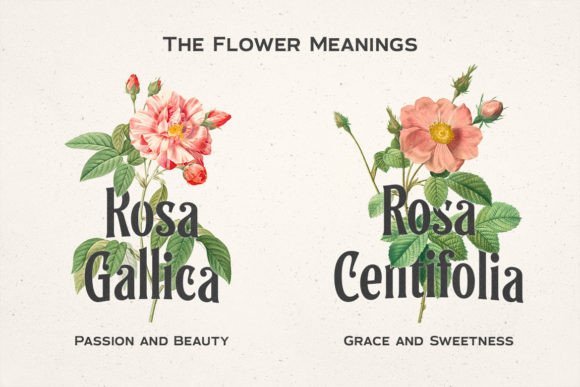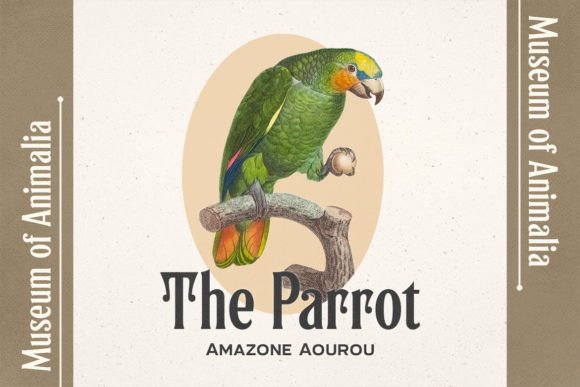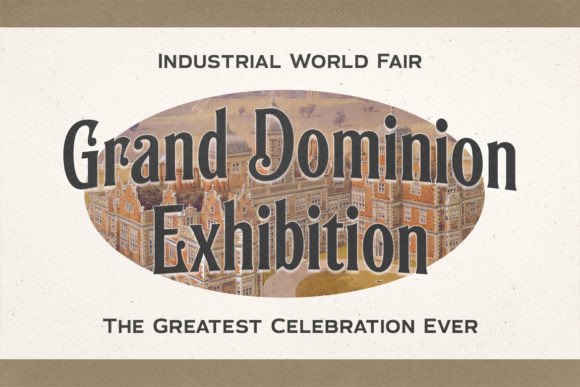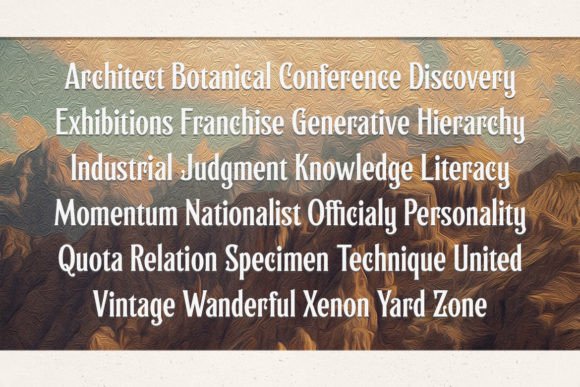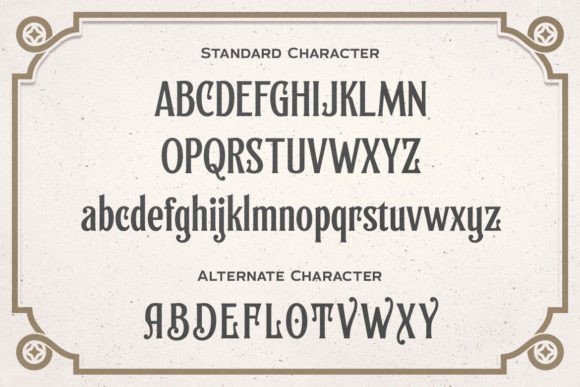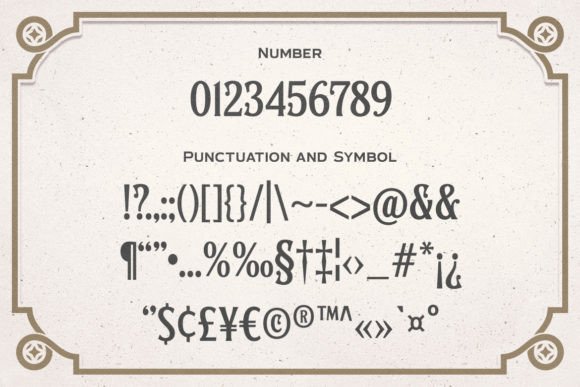
The Charm of Vintage Design: Introducing the Bramforge Font
Have you ever stumbled upon an old, forgotten trunk in your attic, only to be transported back in time by the beautifully crafted lettering on the vintage catalog cards and labels inside? I have, and it sparked a creative moment that led me to discover the Bramforge Font – a stunning display serif typeface inspired by the same era. This charming font is perfect for designers looking to add a touch of nostalgia to their projects.
Bramforge Font is designed for display purposes, such as eye-catching headlines, signage, logos, posters, labels, and more. Its unique blend of vintage charm and modern sensibility makes it a valuable asset for any designer looking to elevate their graphic design projects. Whether you’re working on a historical reenactment or a modern marketing campaign, Bramforge Font is sure to add a touch of sophistication and elegance to your work.
Bramforge Font Key Features
- Unique Characteristic: The font features a unique, hand-crafted design with subtle irregularities, giving it a distinctive and human touch.
- Language Support: Bramforge Font supports a wide range of languages, including Latin, Cyrillic, and Greek alphabets, making it suitable for international applications.
- Font Weight: The font comes in a single weight, which is ideal for use in body text, headings, and titles, providing a clean and balanced look.
Bramforge Font Review
I recently had the chance to work with the Bramforge font, and I must say it’s a unique and intriguing addition to any design project. ✨ The font’s industrial, mechanical feel immediately caught my attention, and it’s perfect for projects that require a touch of grit and edge.
One of the things that works well with Bramforge is its versatility. It comes in a range of weights, from light to bold, which makes it easy to use in different contexts. ✨ The font also has a wide range of language support, making it a great choice for international projects. Additionally, Bramforge is highly legible, even at small font sizes, which is a must-have for any font.
However, there are some limitations to consider. ⚠️ One of the main issues I had was with the font’s kerning, which can be a bit inconsistent at times. This can lead to some awkward spacing between characters, especially in longer text blocks. Additionally, the font’s bold weight can feel a bit overbearing at times, which may not be suitable for all projects.
Overall, I think Bramforge is a great addition to any designer’s toolkit. While it may have some limitations, its unique style and versatility make it a great choice for the right project. With a bit of tweaking and experimentation, I think Bramforge has the potential to become a go-to font for many designers.
Recommendation
Recommended for:
- Industrial or tech-related projects
- Projects that require a bold, edgy feel
- Designers looking for a unique, versatile font
Not recommended for:
- Projects that require a more traditional or elegant feel
- Designers who prioritize perfect kerning and spacing
Getting the Most Out of Bramforge Font
To get the most out of Bramforge Font, use it for:
- Headings and titles to add a touch of elegance.
- Body text to create a cohesive look.
- Branding and logos to establish a unique identity.
Bramforge Font is ideal for:
- Artistic and creative projects.
Yes, Bramforge Font supports a wide range of languages, including Latin, Cyrillic, and Greek scripts. It also includes support for OpenType features, allowing for advanced typographic control and language-specific glyphs.